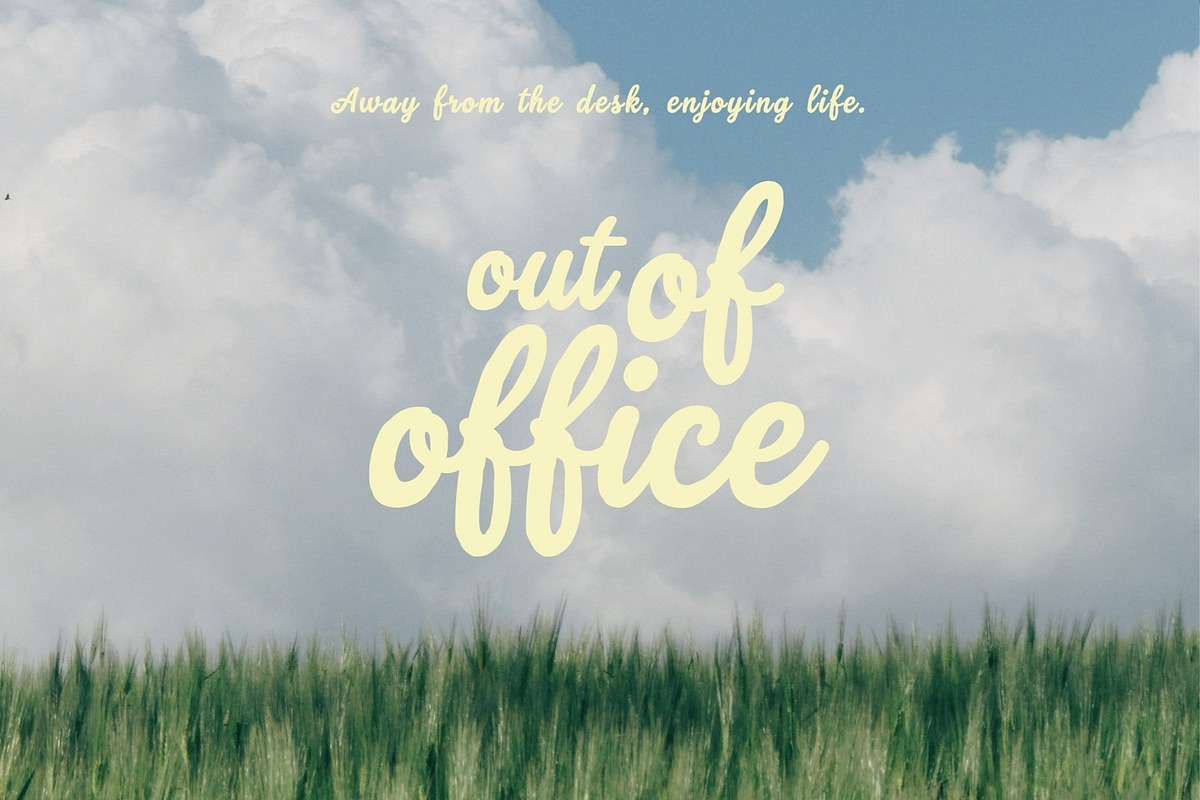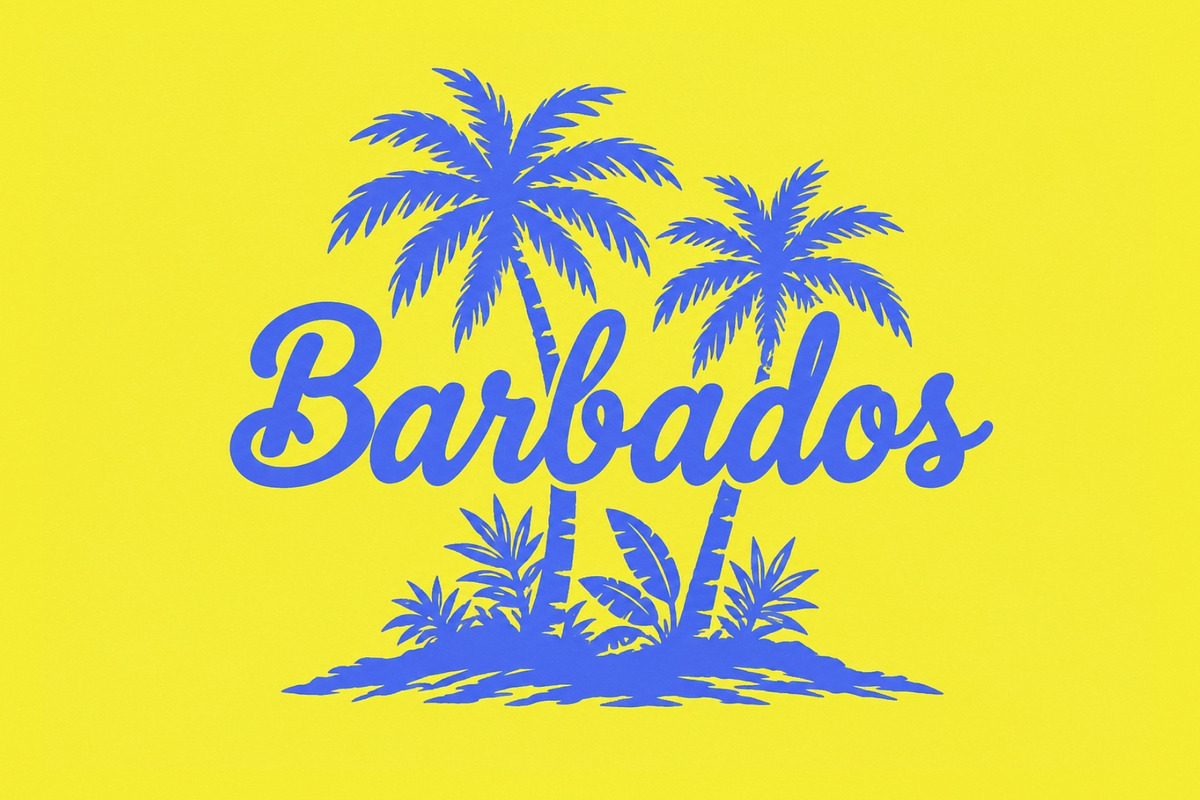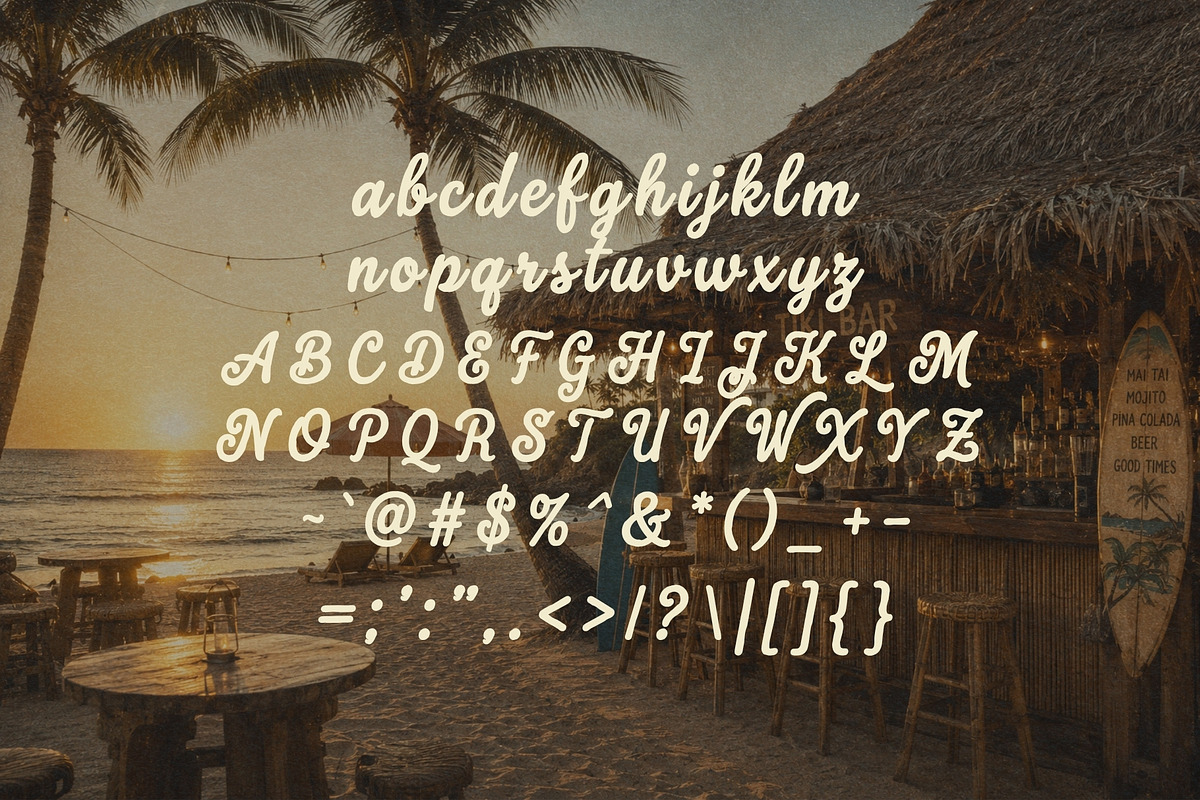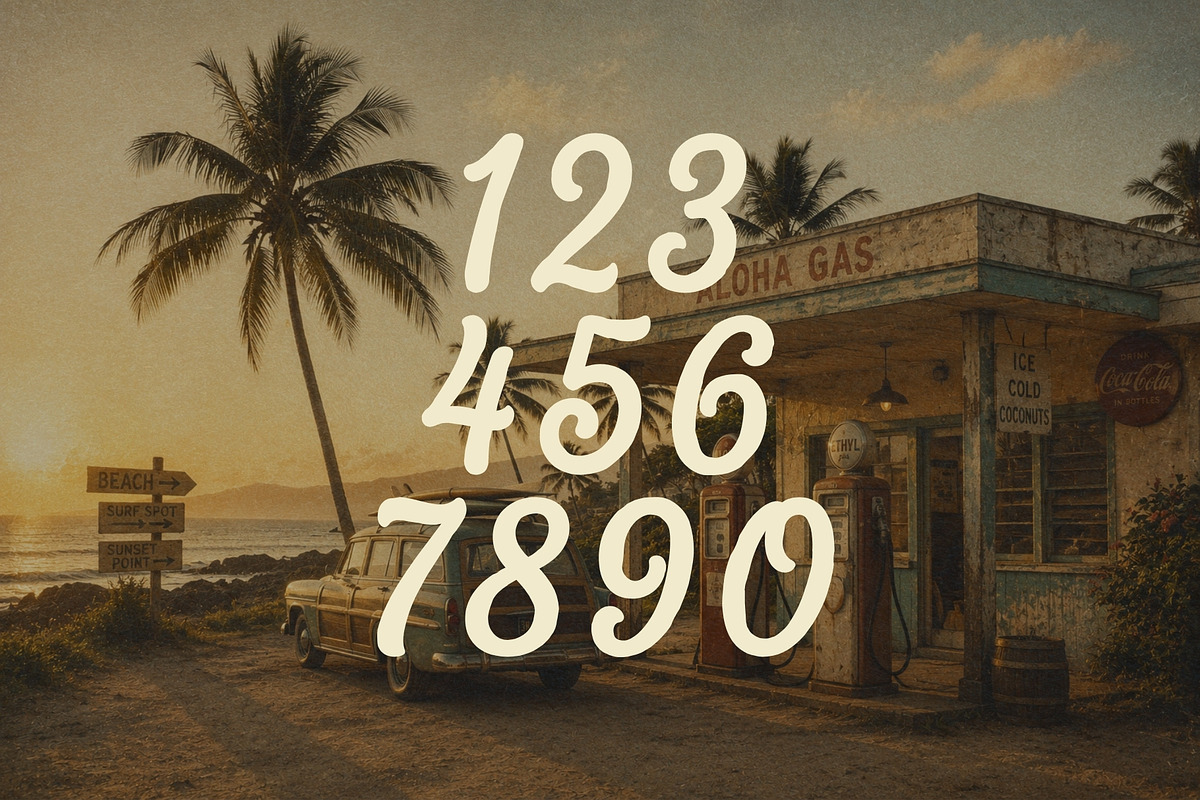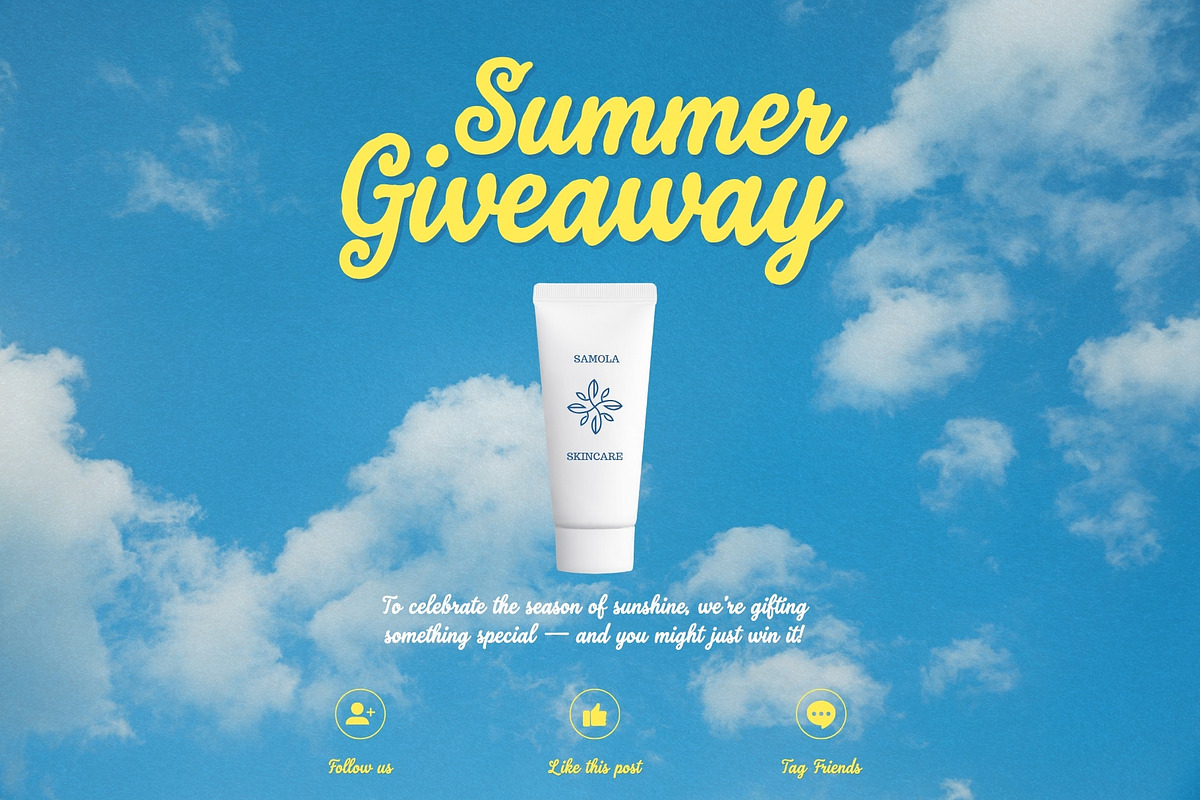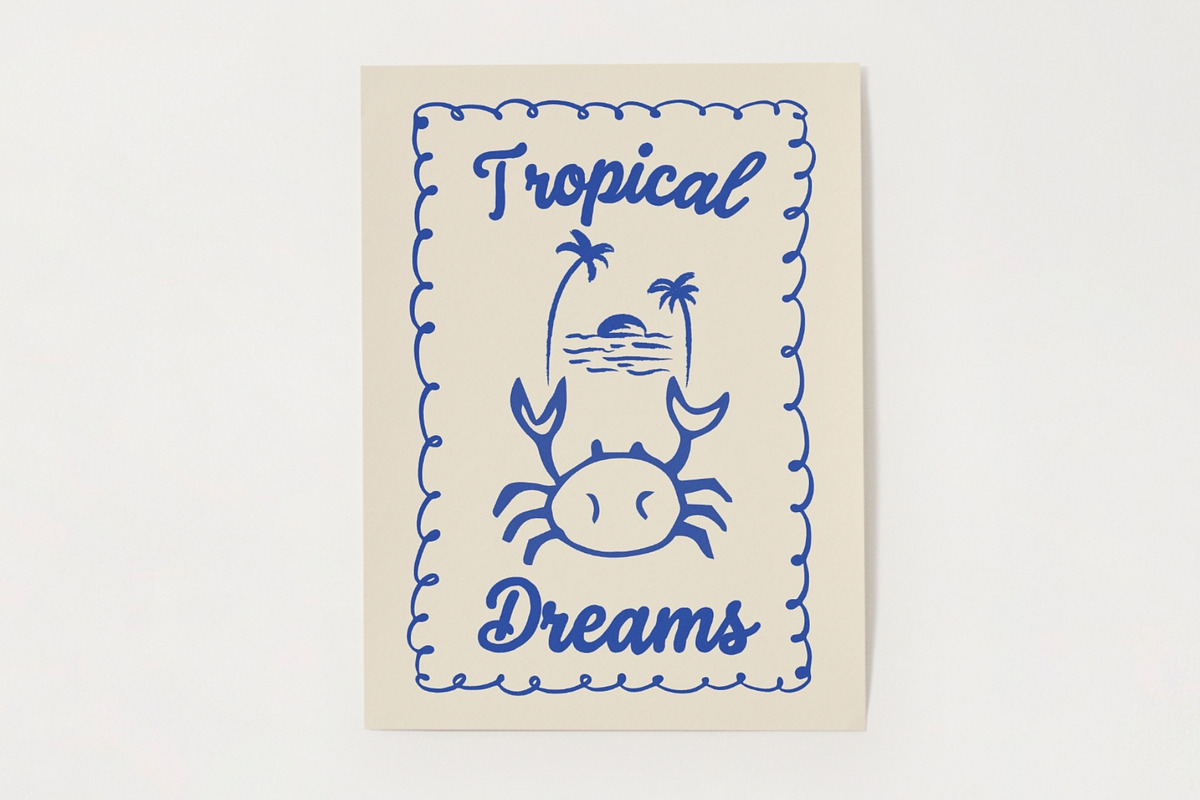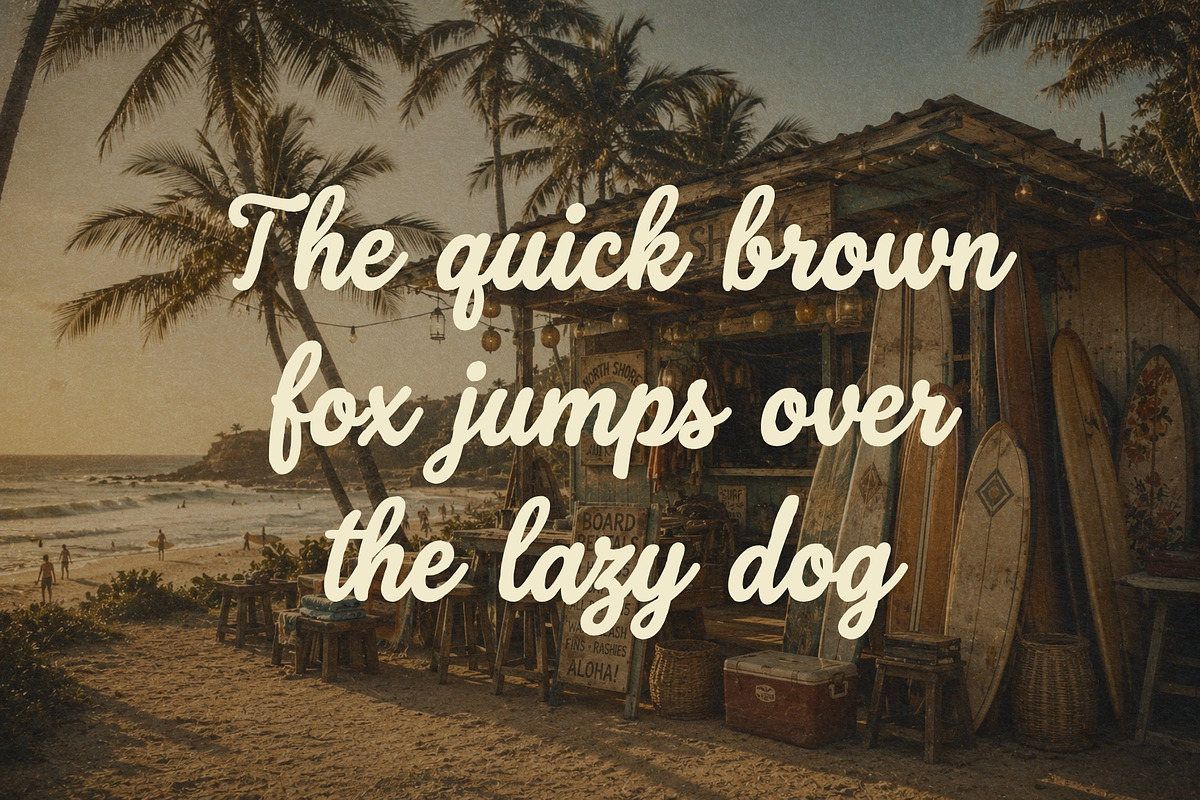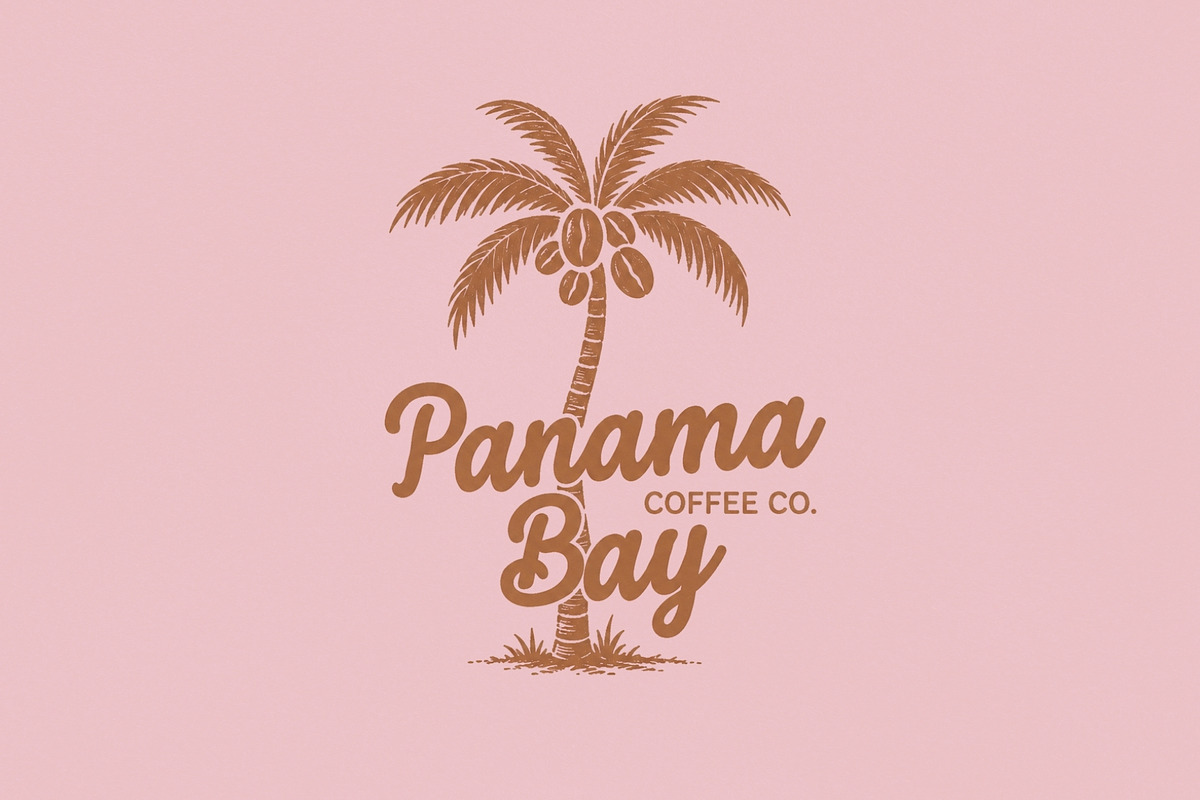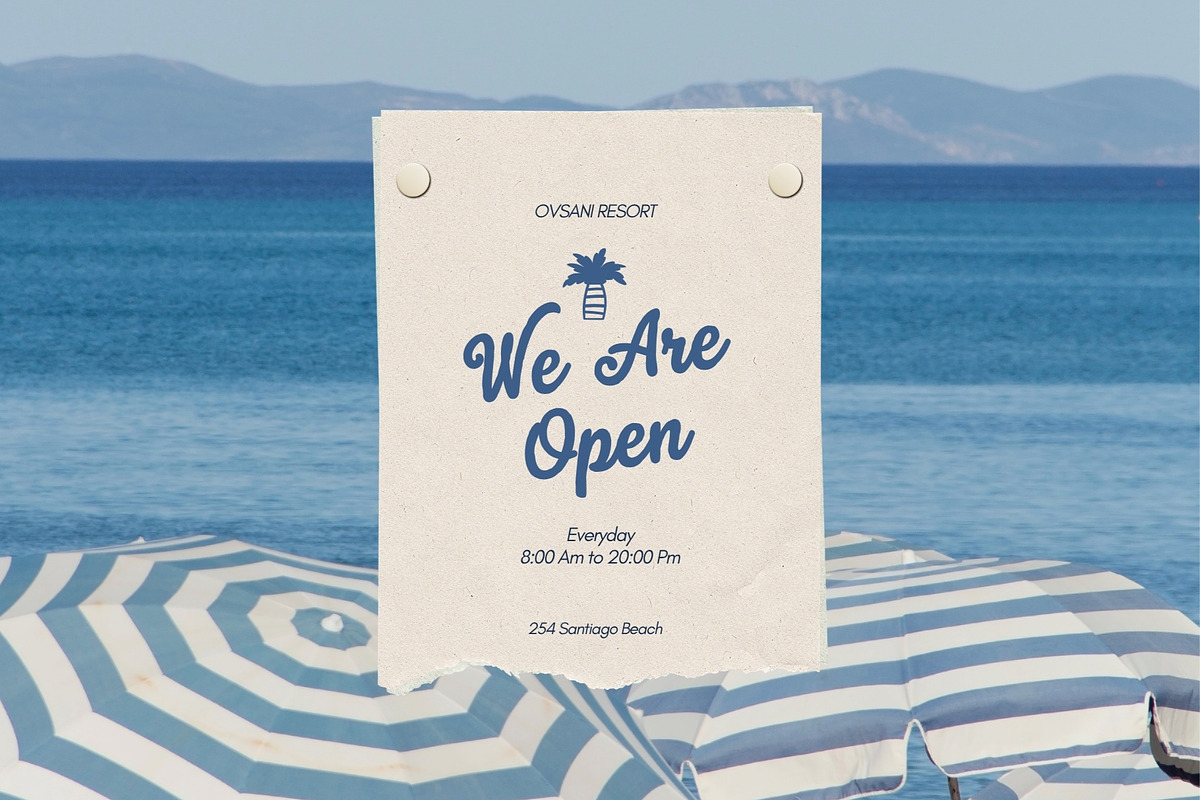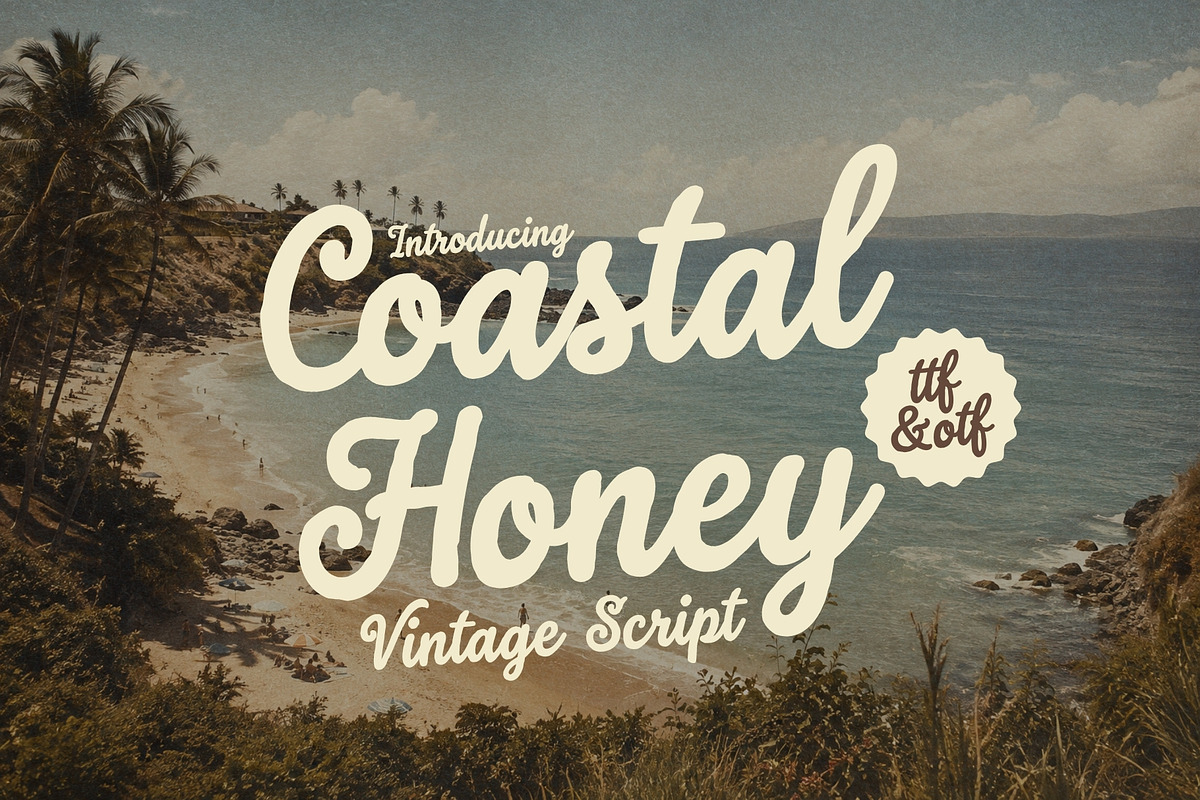
Coastal Honey - Summer Script
Meet Coastal Honey, a hand-drawn vintage script font soaked in sunshine, nostalgia, and the carefree spirit of long summer days by the sea.
Inspired by handwritten postcards, retro beach signs, coastal cafés, old travel advertisements, and those dreamy holidays that somehow always feel warmer in memory, Coastal Honey blends smooth curves with breezy, hand-drawn strokes to create a typeface full of effortless charm.
Its flowing letterforms feel relaxed yet confident, giving your designs a warm, personal character without losing that polished vintage appeal. The handmade details add just enough imperfection to make every word feel authentic, while the graceful rhythm of the script keeps your typography soft, stylish, and inviting.
Coastal Honey is perfect for retro branding, travel posters, resort identities, beachwear, café logos, product packaging, wedding stationery, social media graphics, apparel, postcards, labels, menus, book covers, and summer-themed designs.
A selection of alternate characters gives you even more freedom to customize your lettering, create beautiful wordmarks, and add unexpected personality to headlines and logos.
Whether you're designing for a seaside boutique, dreaming up a vintage travel campaign, or creating packaging that needs a little more sunshine, Coastal Honey brings the warmth of an endless summer straight into your typography.
Hand-drawn. Sun-soaked. Nostalgic. Made for summer.